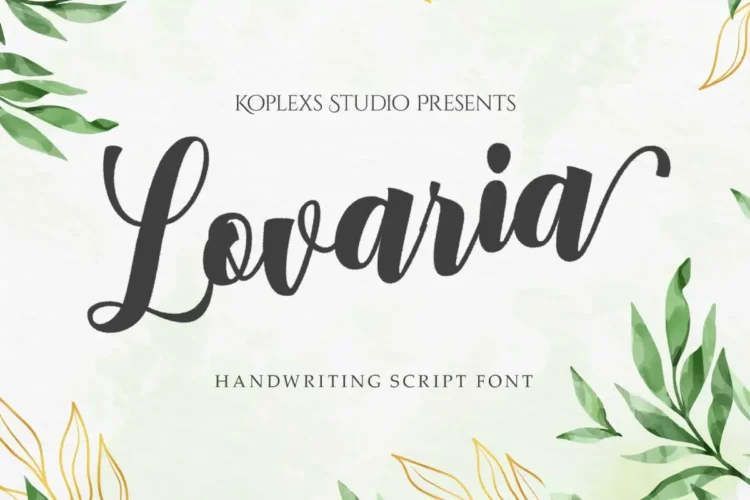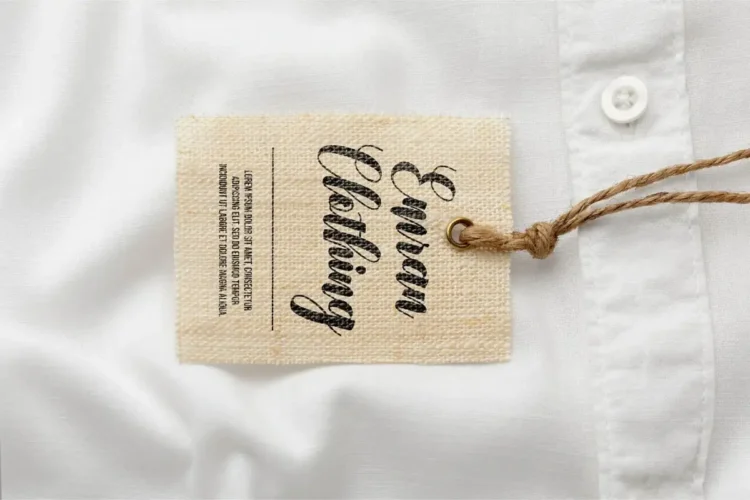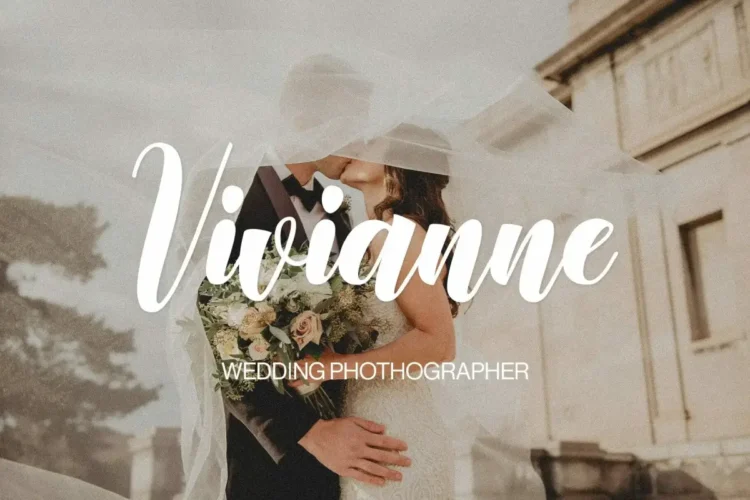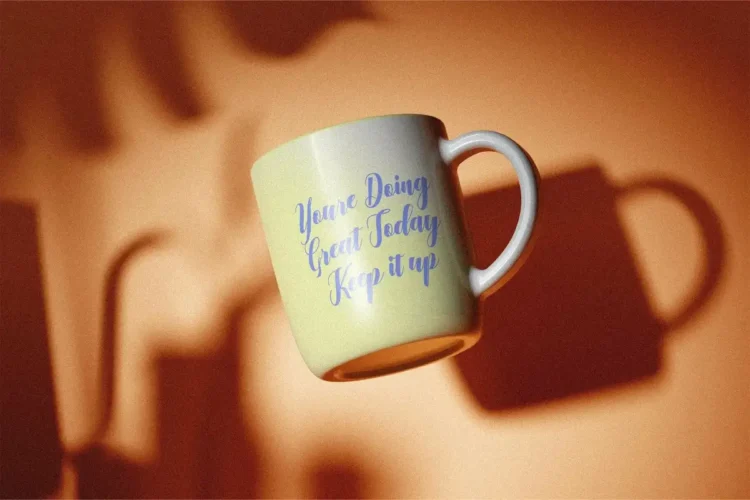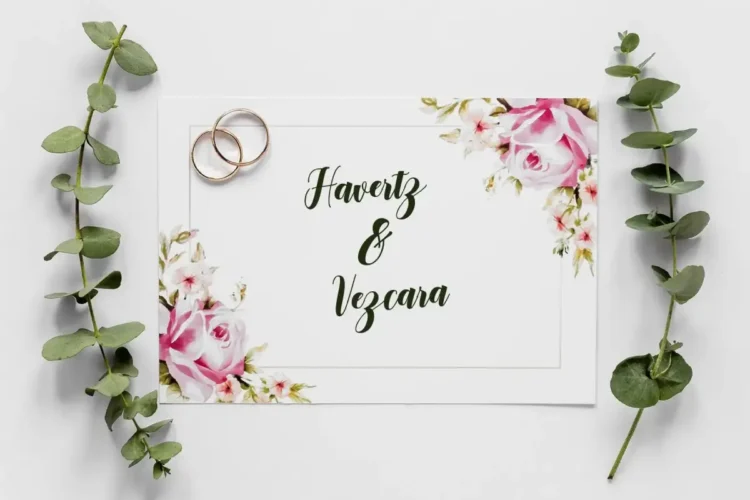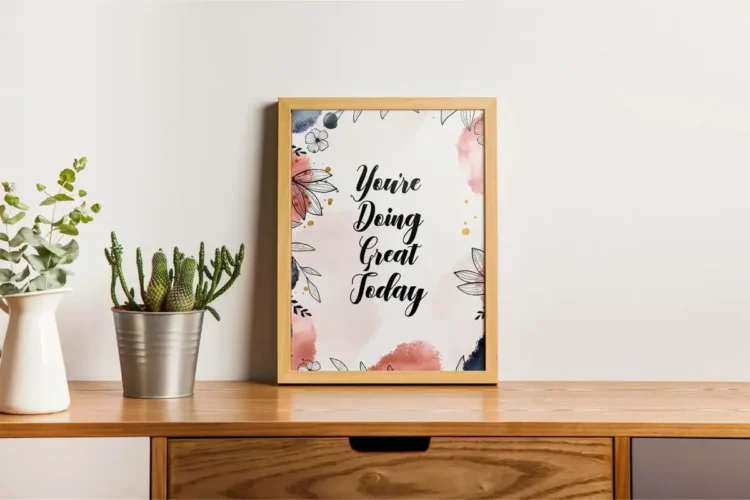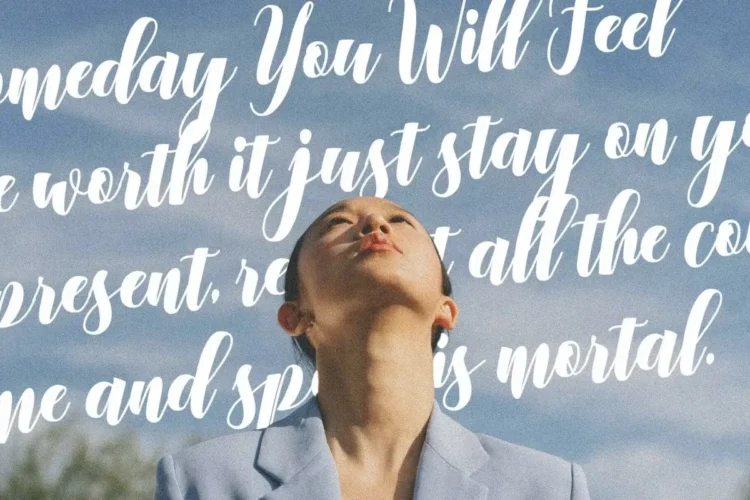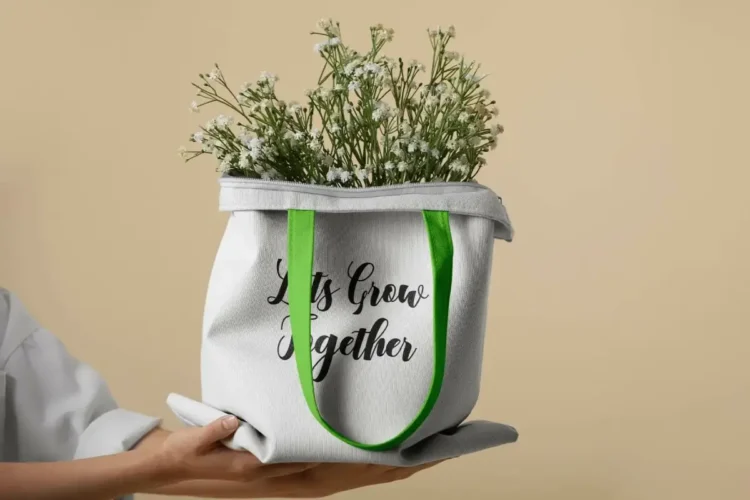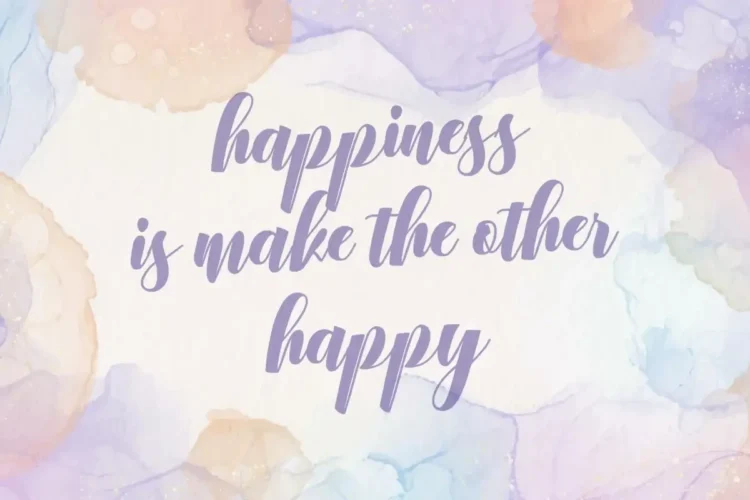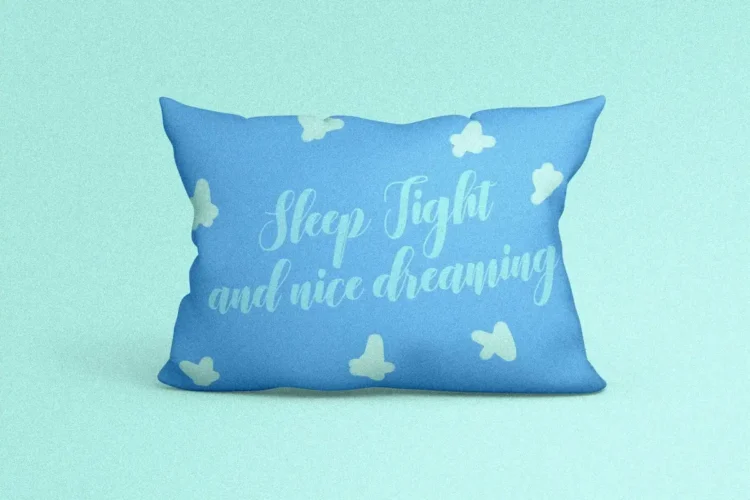
Lovaria Font
Lovaria Font – Elegant Handwritten Script & Calligraphy Typeface for Branding & Wedding Designs
Lovaria Font is a stunning Handwritten Font crafted with an elegant and natural flow. Designed as a perfect blend of Script Font, Signature Font, and Cursive Font, Lovaria brings a personal and sophisticated touch to any design project. With its graceful strokes and modern yet timeless style, it works beautifully as a Wedding Font, Branding Font, Cosmetic Font, Aesthetic Font, and Calligraphy Font.
This typeface embodies the charm of modern fonts, balancing the warmth of handwriting with the luxury of professional typography. Whether you need a stylish Logo Font, a Luxury Font for packaging, or an Elegant Font for invitations, Lovaria adapts seamlessly to multiple design needs.
Lovaria Font is ideal for:
• Wedding Invitations & Save-the-Dates
• Branding & Logo Design
• Beauty & Cosmetic Packaging
• Greeting Cards & Stationery
• Social Media Templates
• Home Decor Prints & Wall Art
• Apparel & Fashion Tags
• Coffee Mugs, Tote Bags & Merchandise
✨ Key Features of Lovaria Font:
• Handcrafted Calligraphy Script Font with flowing elegance
• Ideal for wedding invitations, branding, logos, packaging, and cosmetics
• Works as both a modern font and signature font for personal or corporate use
• Smooth curves that create an aesthetic and luxury font look
Bring your creative projects to life with Lovaria’s timeless elegance.
Lovaria Font is an elegant Handwritten Script Font that blends calligraphy beauty with modern luxury. Perfect as a wedding font, branding font, signature font, and logo font, it delivers timeless sophistication. Ideal for invitations, packaging, cosmetics, and more, this cursive and aesthetic font brings elegance to any project.